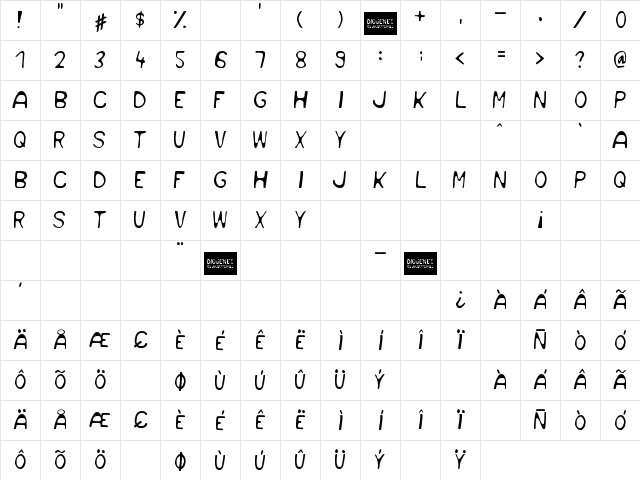
Diogenes Regular Free Font
Diogenes Regular
Designer: Woodcutter Manero
Design Context for Diogenes
Diogenes is a composed and adaptable typeface that performs quietly and consistently across a wide range of design contexts.